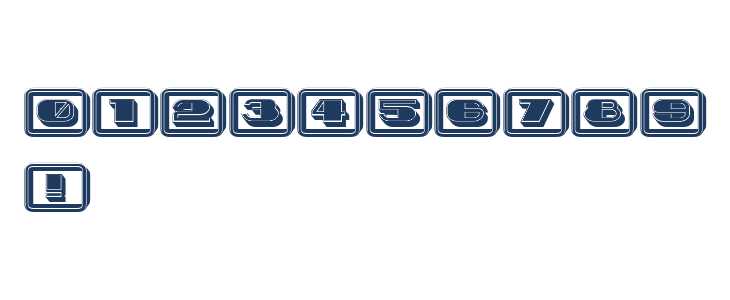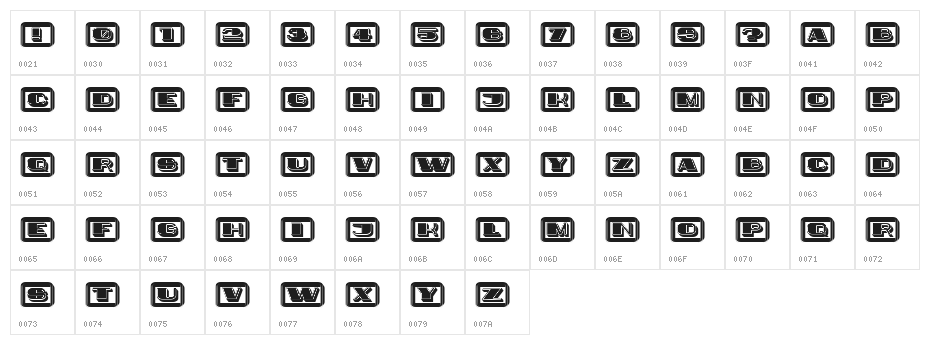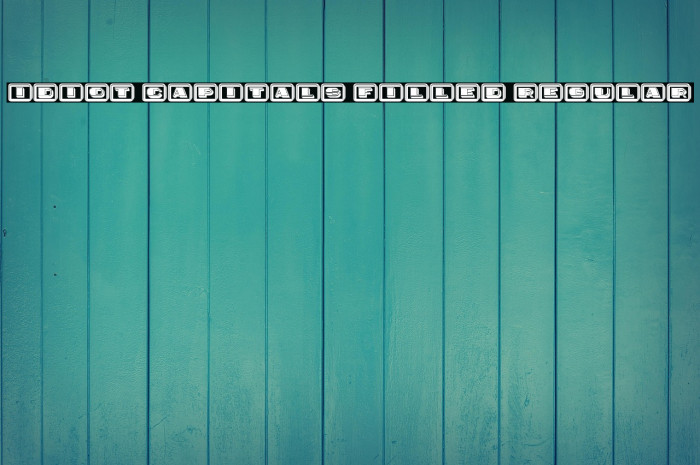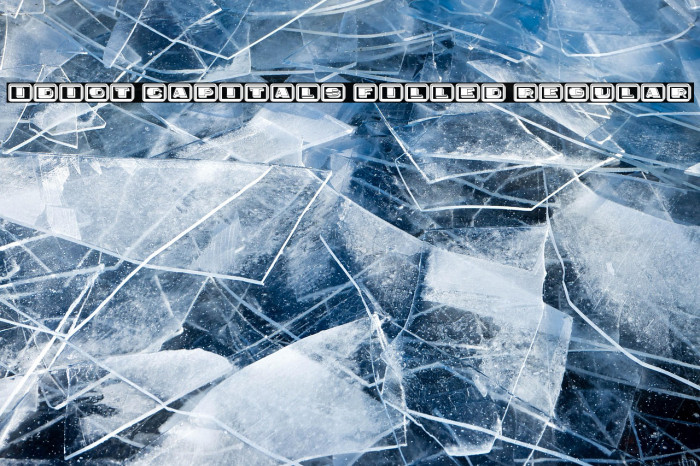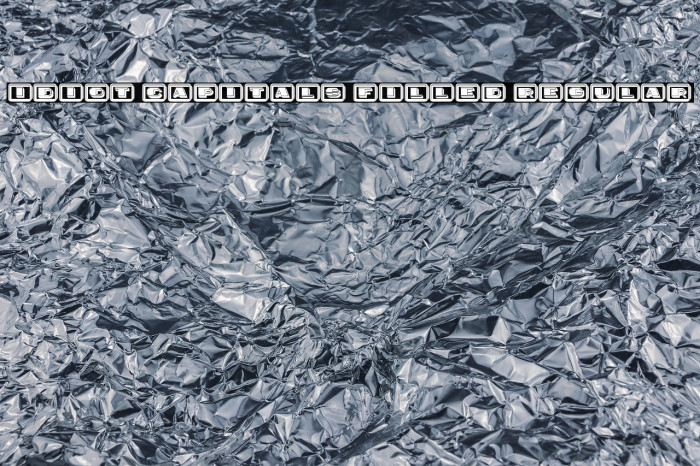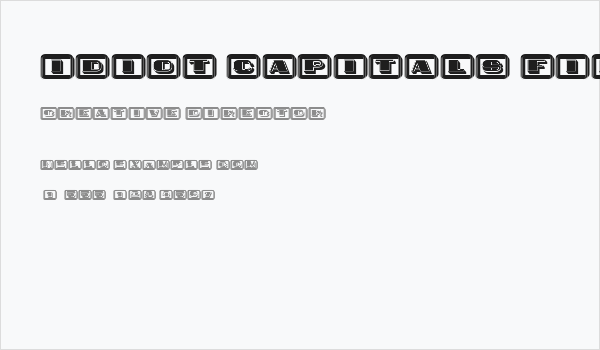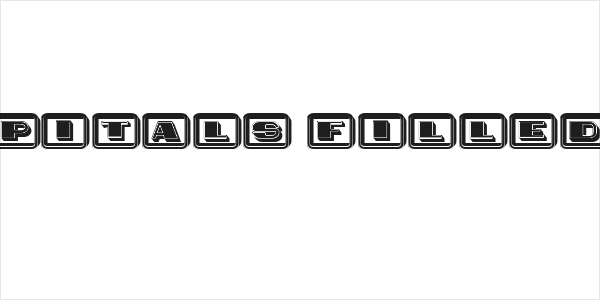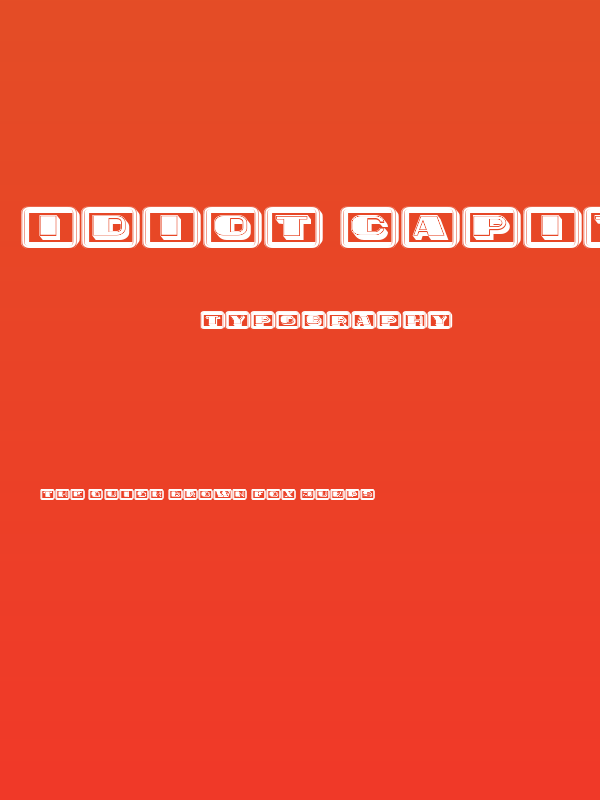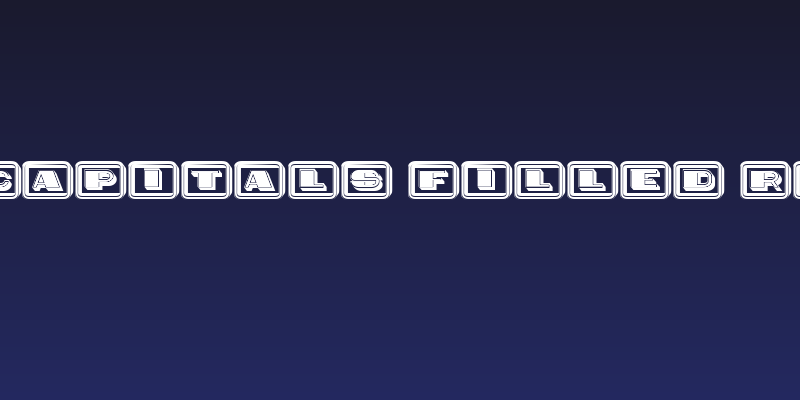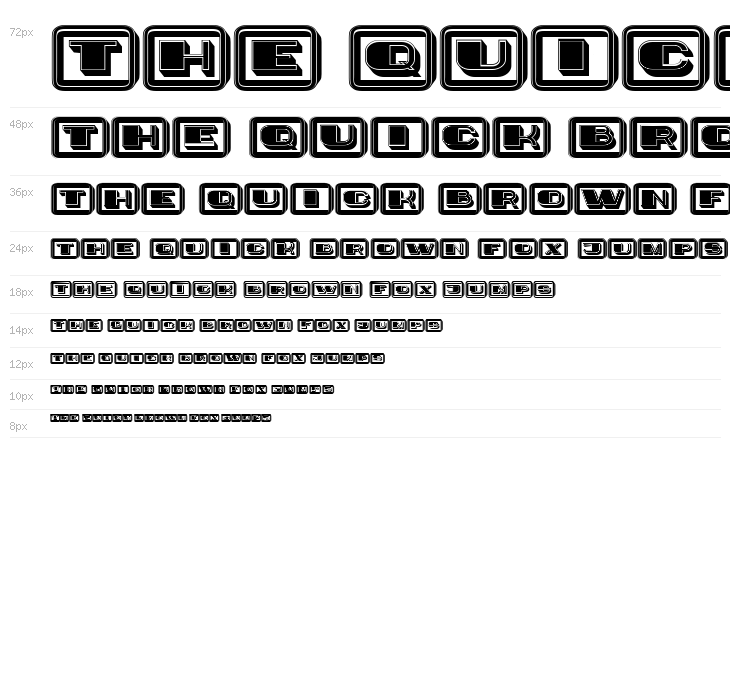
Idiot Capitals Filled Regular Font
Idiot Capitals Filled Regular Description
This font features bold, three-dimensional block letters with a filled interior and a distinct outline, creating a striking visual impact. Each character is encased in a square, giving it a uniform and structured appearance. The design is reminiscent of retro or vintage styles, with a playful yet robust aesthetic. The font's geometric nature and high contrast between the filled and outlined areas make it highly legible and eye-catching. It is ideal for projects that require a bold statement or a unique, decorative touch.
| Proposed Projects | Perfect for posters, logos, headlines, and any design needing a bold, retro aesthetic. |